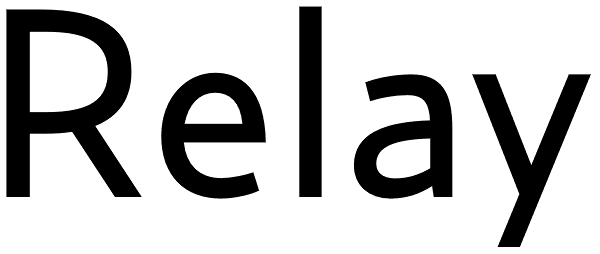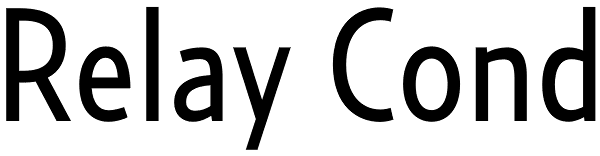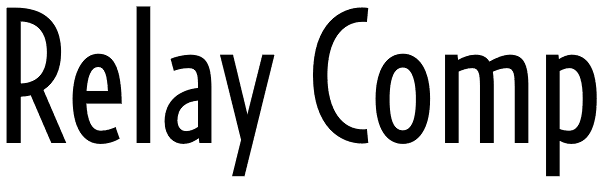
Relay
Relay reaches back to the middle of the last century for inspiration. In England, Edward Johnston and Eric Gill applied humanist proportions and shapes to the geometric sanserif and established a trend within European art deco. In the United States...